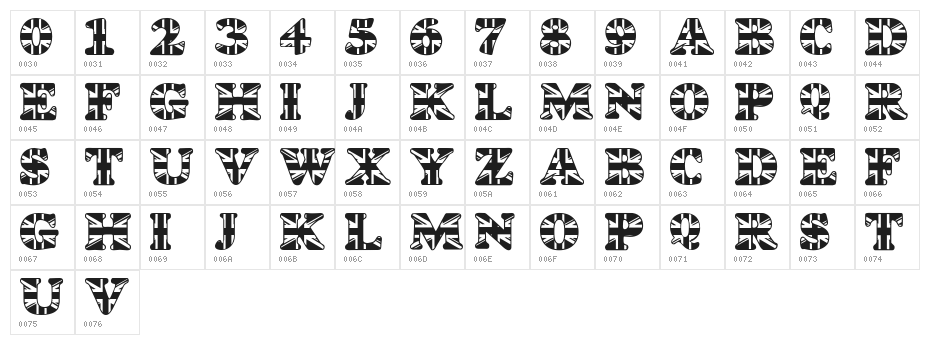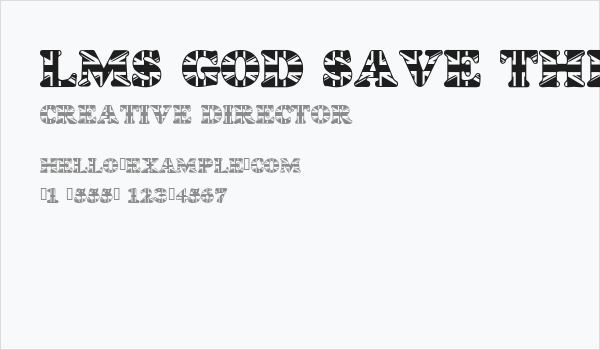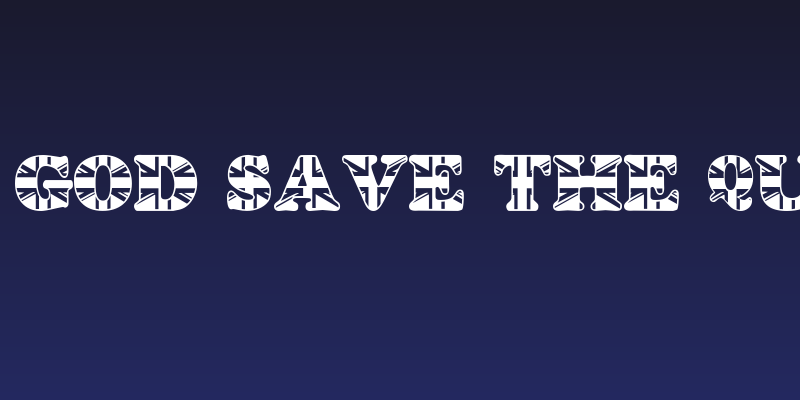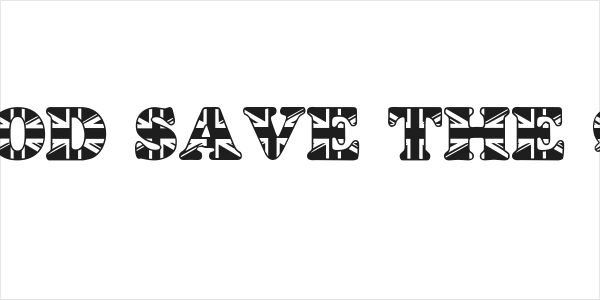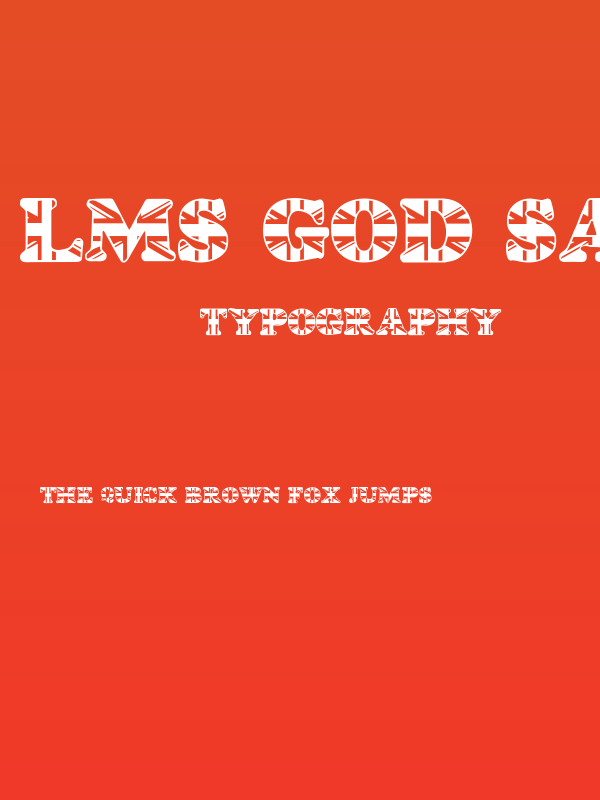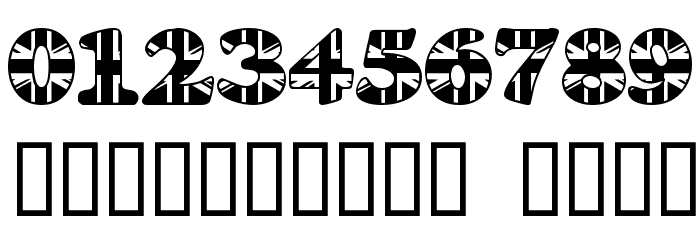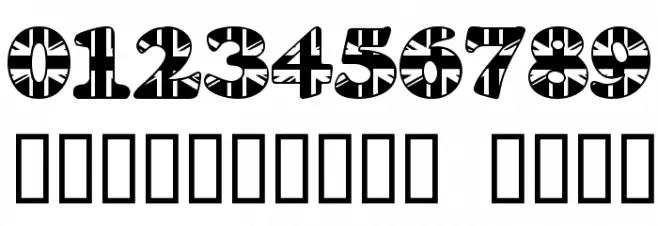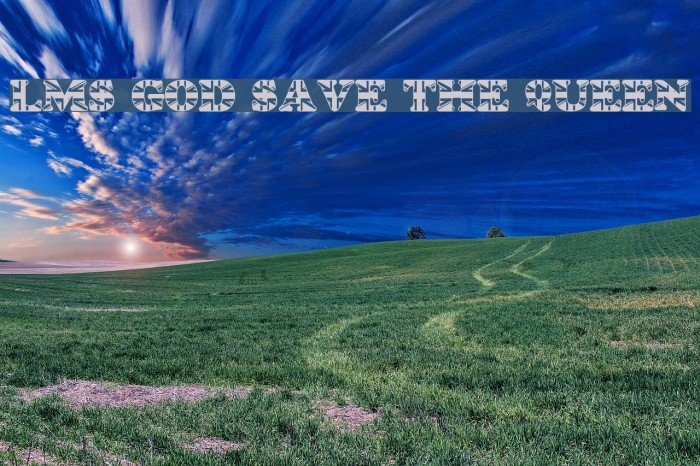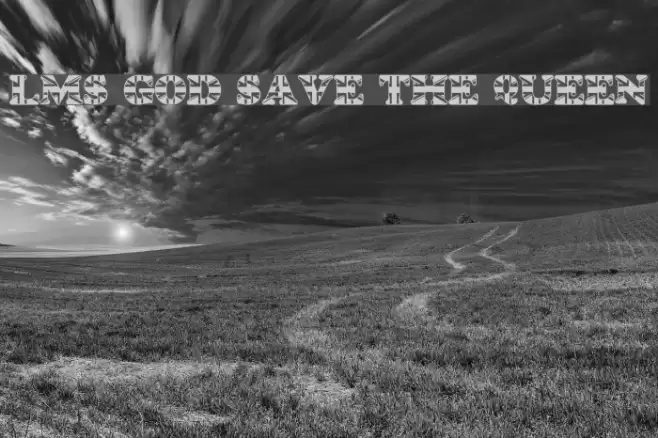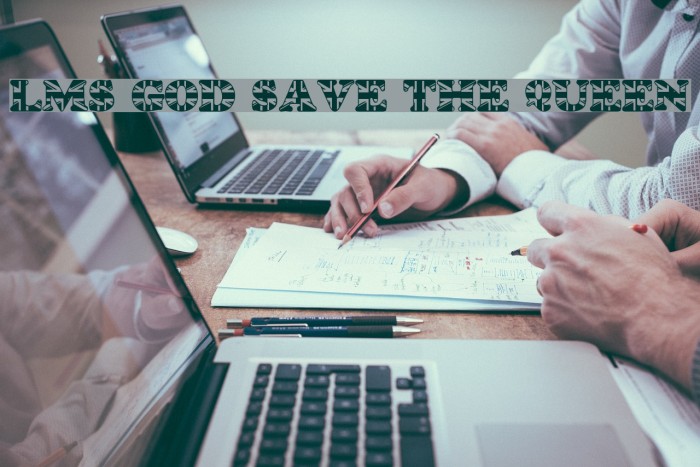
LMS God Save The Queen Font
LMS God Save The Queen Description
This font features a bold and striking design with a unique pattern reminiscent of the Union Jack flag integrated into each character. The uppercase letters are prominently styled, making them ideal for attention-grabbing headlines or thematic designs. The numbers and special characters maintain the same distinctive pattern, ensuring consistency across all text elements. The font's decorative nature makes it less suitable for body text but perfect for projects that require a patriotic or themed aesthetic.
| Proposed Projects | Ideal for themed posters, event invitations, patriotic merchandise, or any design requiring a bold, decorative touch. |